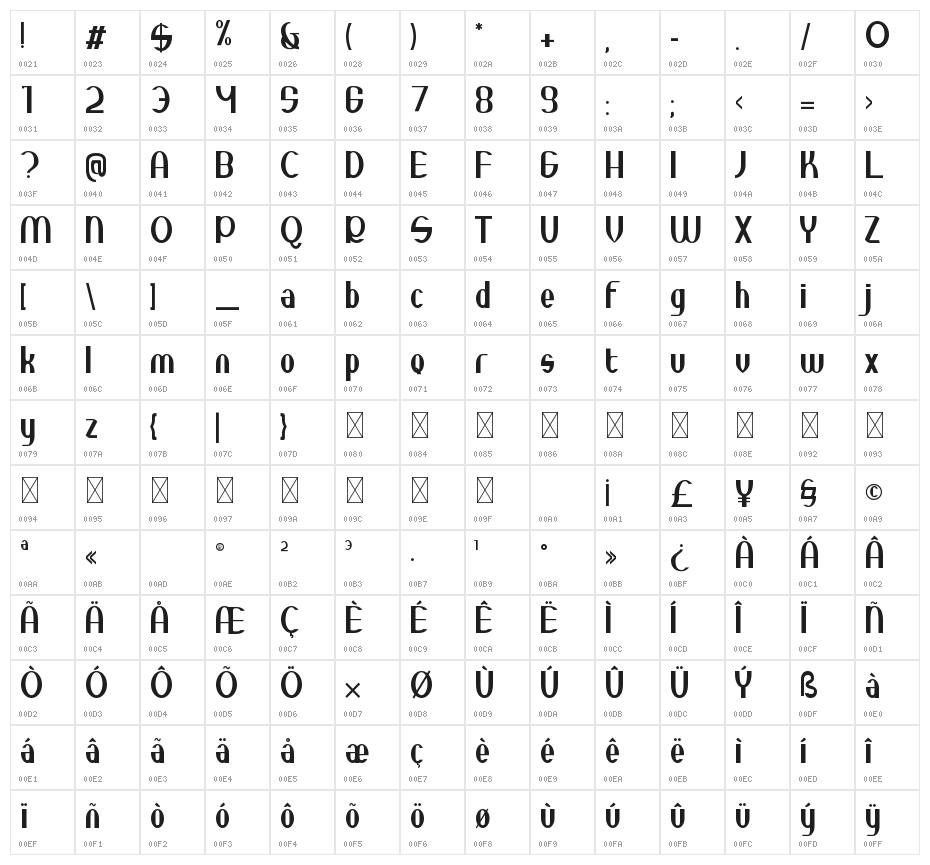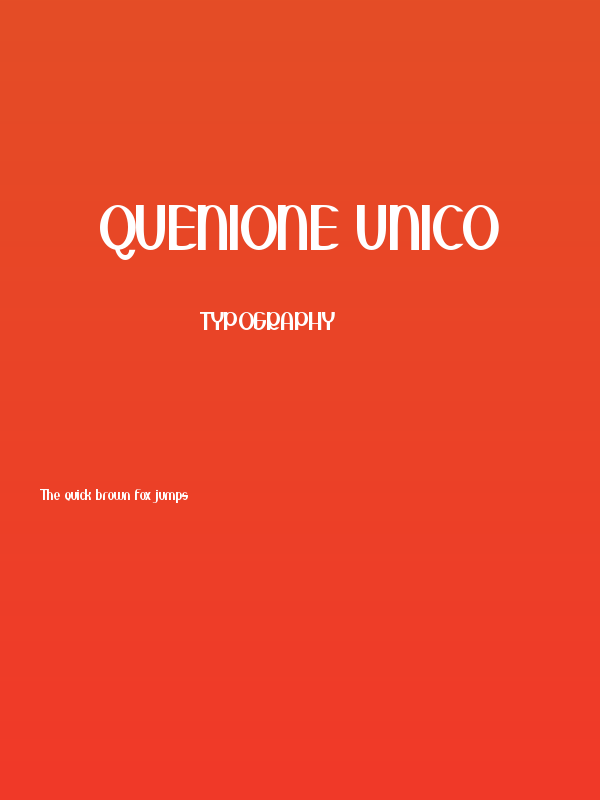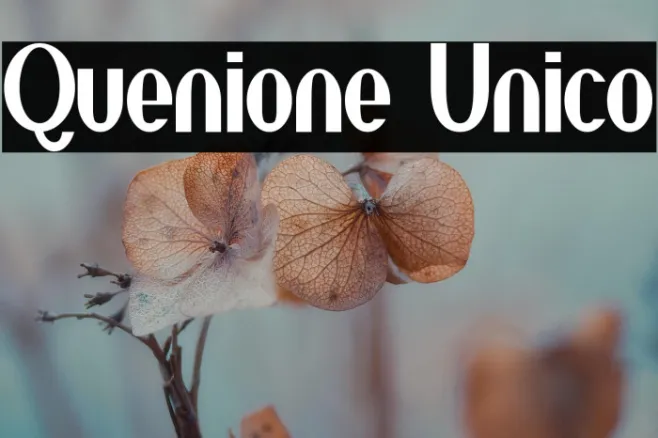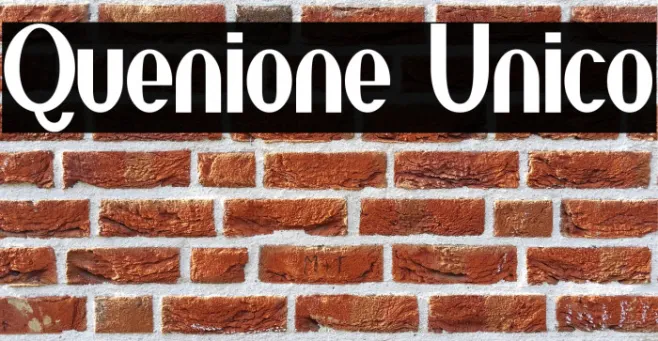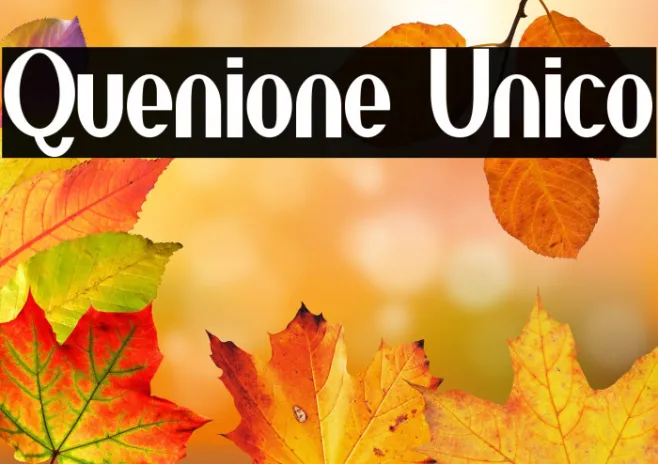
Quenione Unico Font
Quenione Unico Description
This font features a bold and modern design with a unique blend of geometric and curved elements. The uppercase letters are characterized by their tall, narrow forms with rounded edges, giving them a sleek and contemporary appearance. The lowercase letters maintain a similar style, with some characters exhibiting distinctive, playful curves that add a touch of creativity. The numerals are bold and consistent with the overall geometric theme, ensuring readability and visual impact. Special characters are designed to complement the alphabet with a cohesive aesthetic, making this font versatile for various design needs.